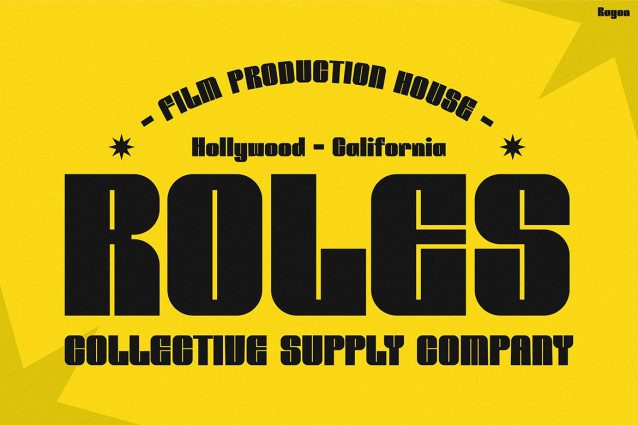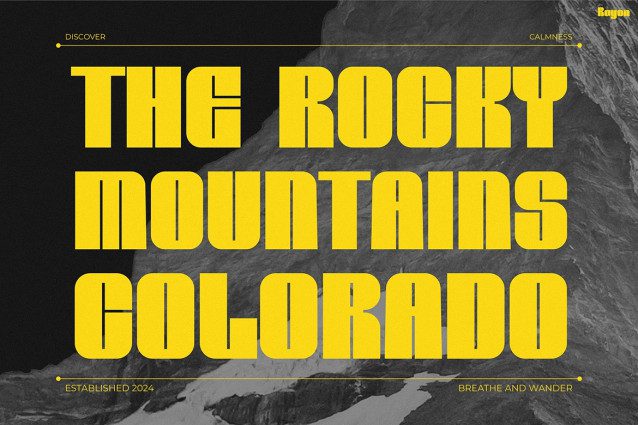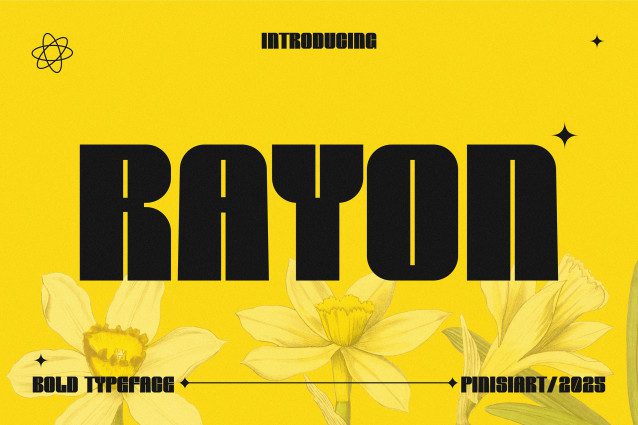
Rayon Font
Rayon Font is a striking display typeface that captures the perfect harmony between vintage nostalgia and modern boldness. Its chunky letterforms, smooth edges, and powerful geometric structure make it stand out instantly in any design. Inspired by mid-century typography and classic poster art, RAYON radiates a confident energy that turns simple text into visual statements. Every curve and contour of this typeface speaks with charisma, making it ideal for projects that need both strength and soul.
What makes RAYON truly unique is its ability to blend retro aesthetics with a clean, contemporary twist. It feels familiar yet refreshing — like a modern revival of old-school typography. Its strong uppercase style and rounded terminals make it readable and visually balanced, while its dramatic weight variation creates a sense of rhythm and movement. Whether you’re designing a brand identity, editorial cover, or vintage signage, this font ensures your message will never go unnoticed.
Retro Font RAYON is designed for creative professionals who love to merge nostalgia with modern design trends. It’s perfect for branding projects, packaging, magazine headlines, music posters, fashion campaigns, and bold product labels. Graphic designers, art directors, and digital creators will appreciate its versatility and bold tone — a typeface that not only decorates but dominates your layout.
Because of its adaptable personality, RAYON also works beautifully in digital or print compositions. Use it for retro movie titles, event posters, editorial spreads, or even dynamic social media visuals. Wherever you use it, this font adds a timeless statement that evokes both creativity and confidence.
Bring your projects to life with Retro Font RAYON and let every word radiate power and personality. Its stylish retro charm and flawless balance make it more than just a font — it’s a design experience. If you’re looking to make your designs memorable, expressive, and full of character, RAYON is the bold choice you’ve been waiting for.